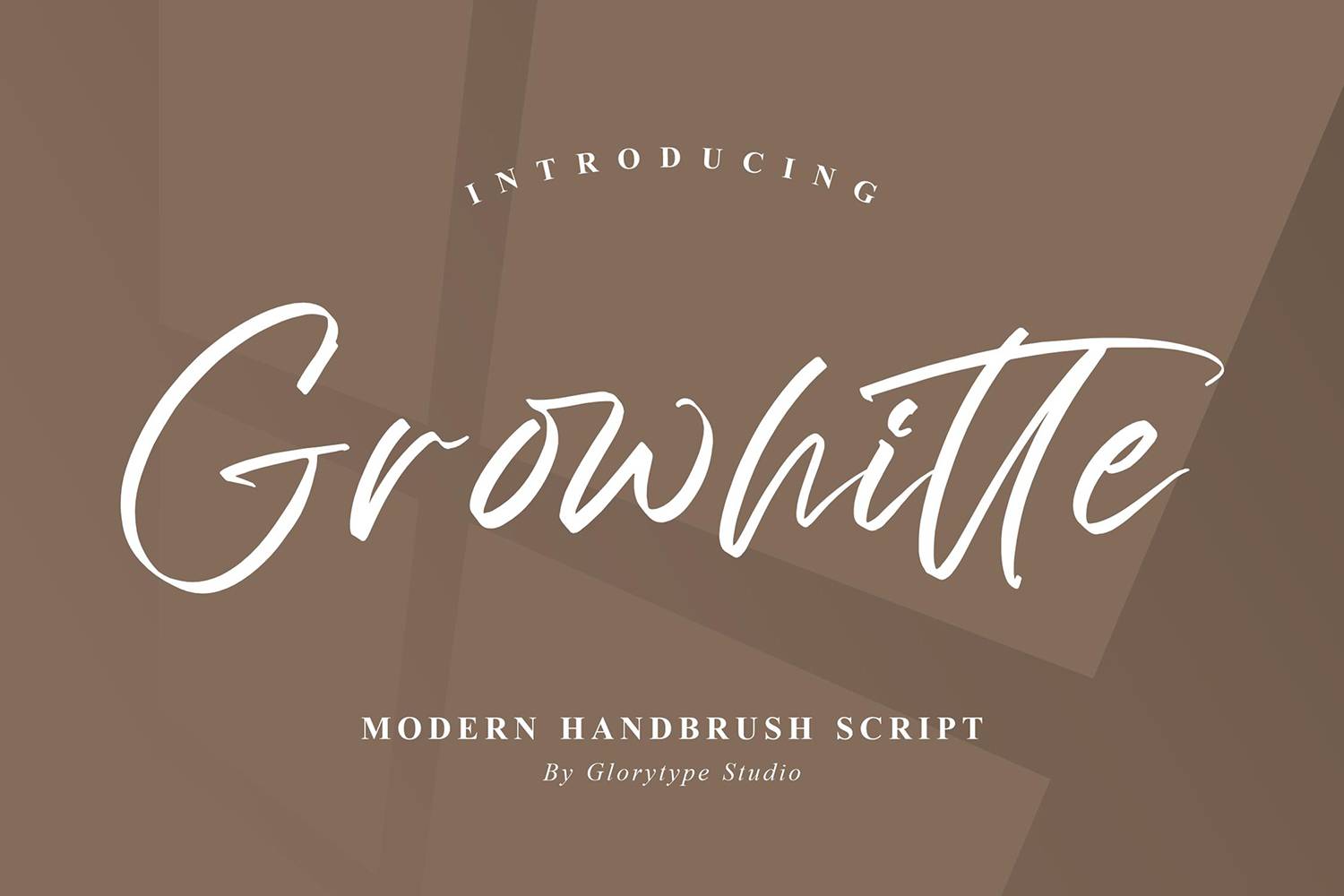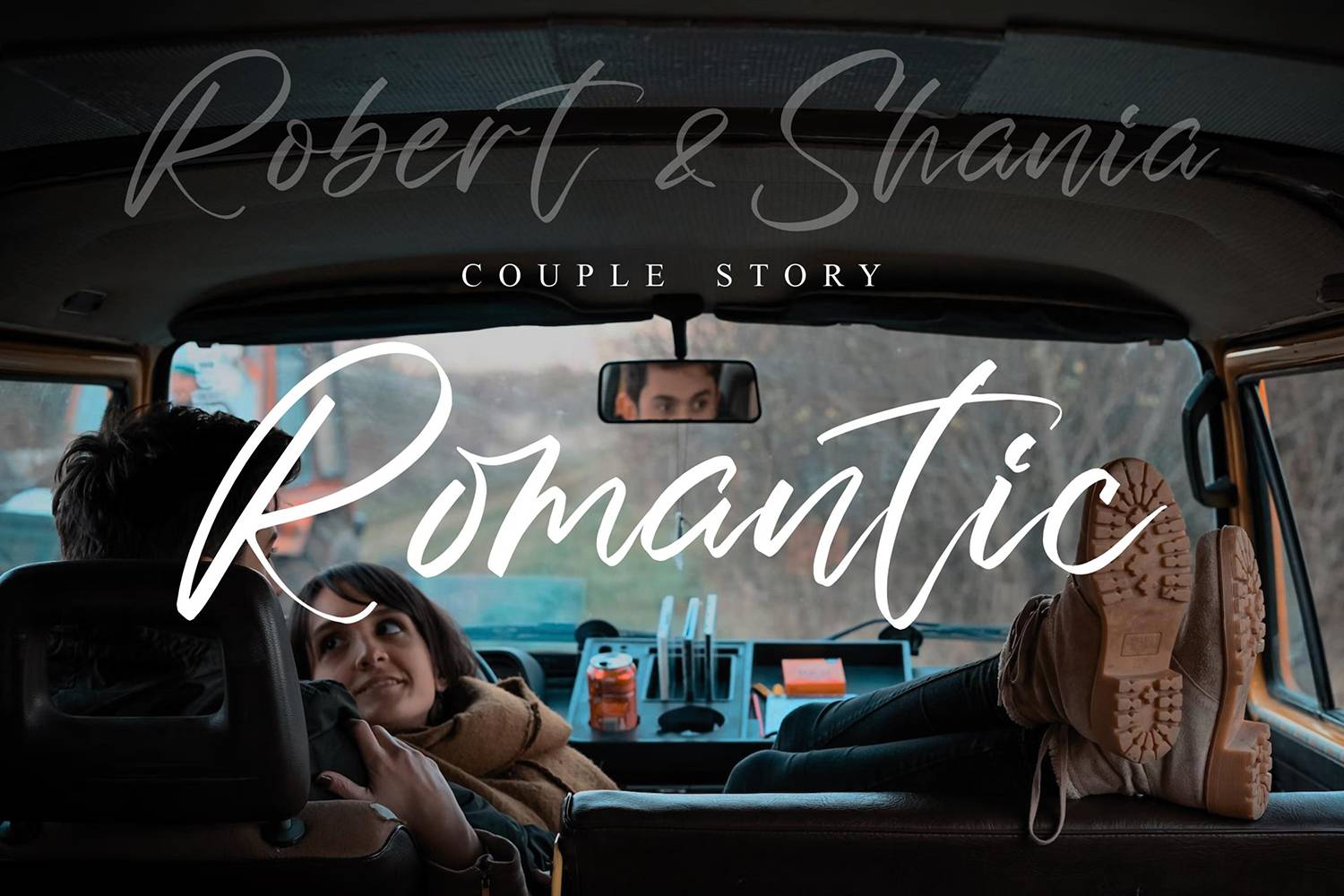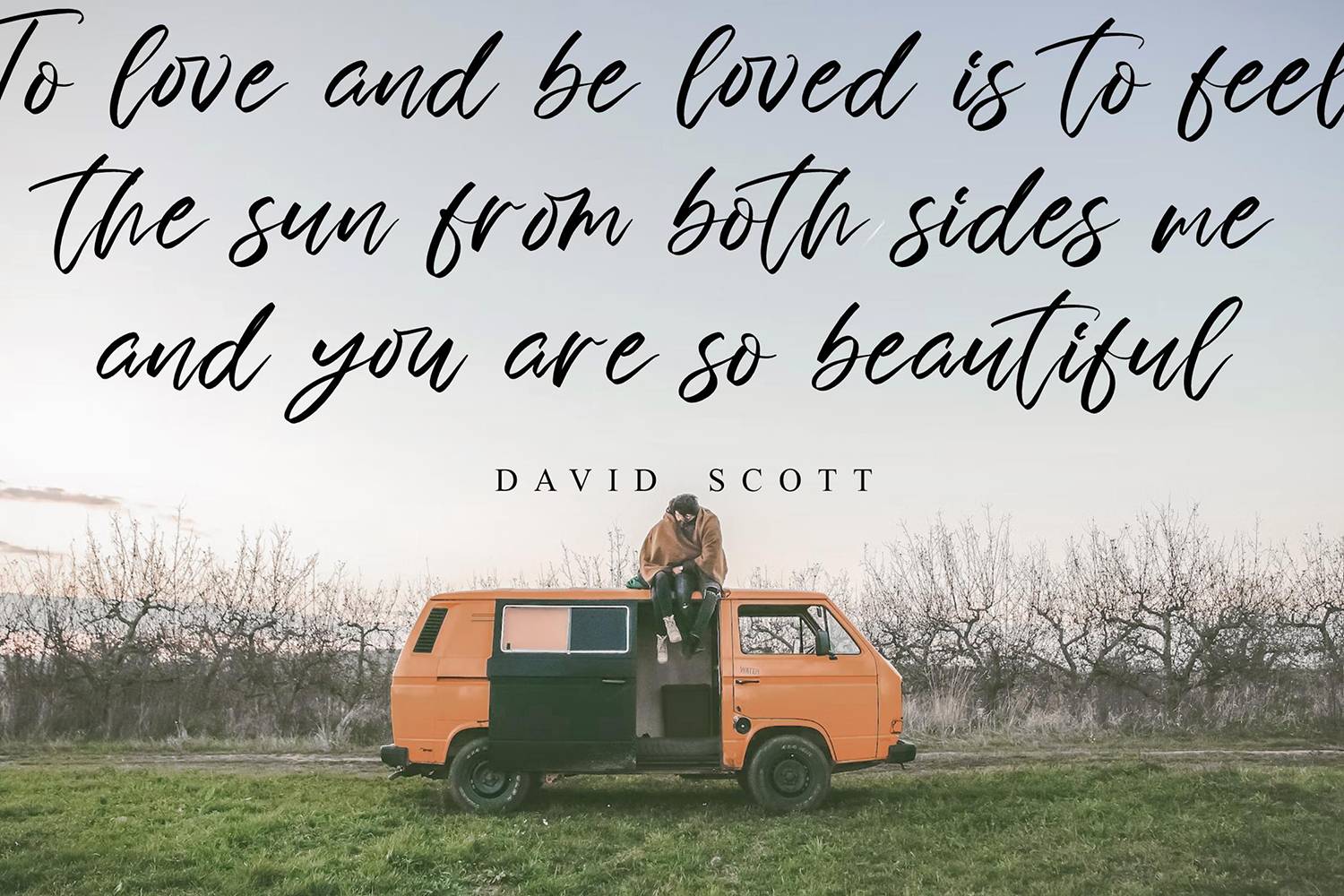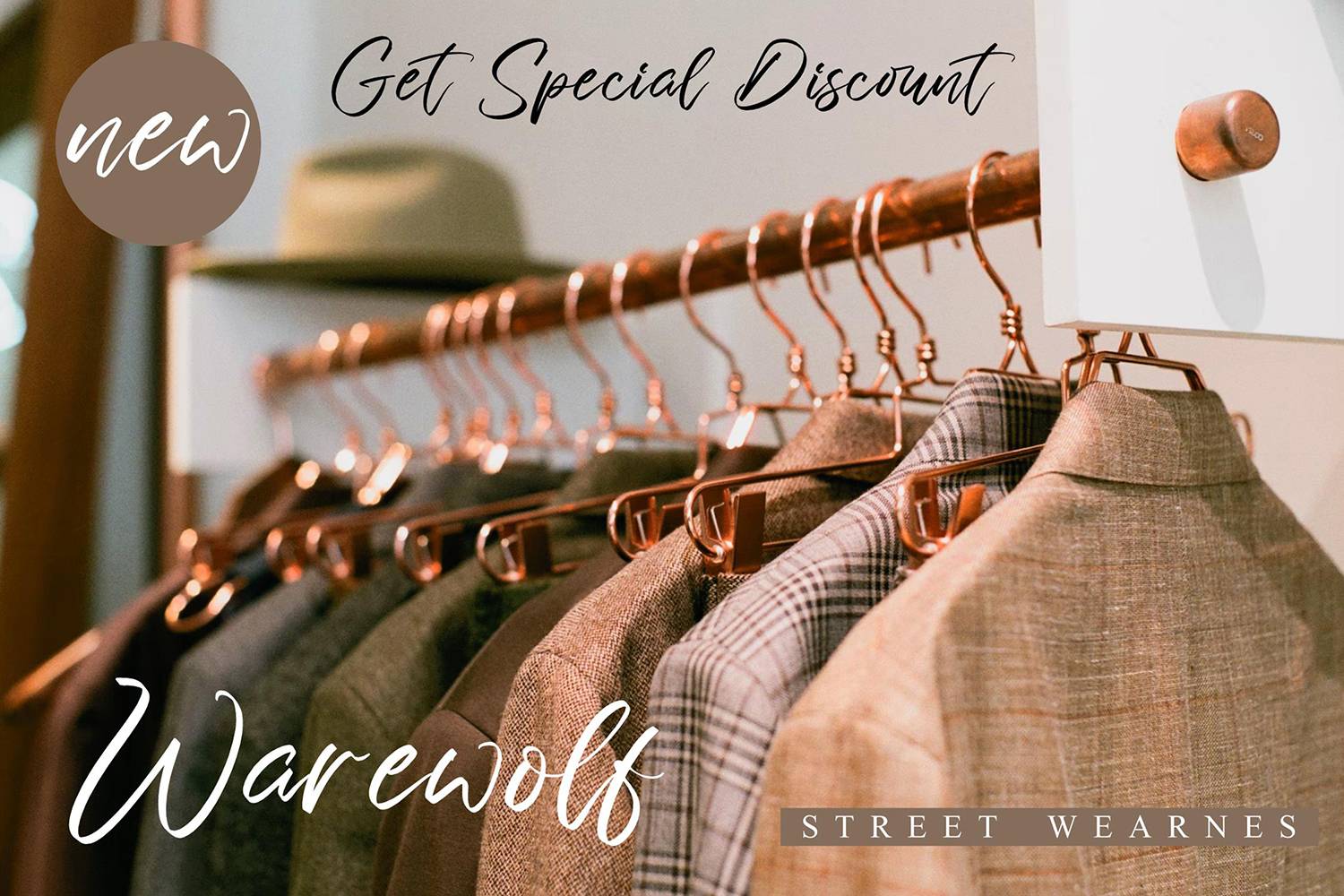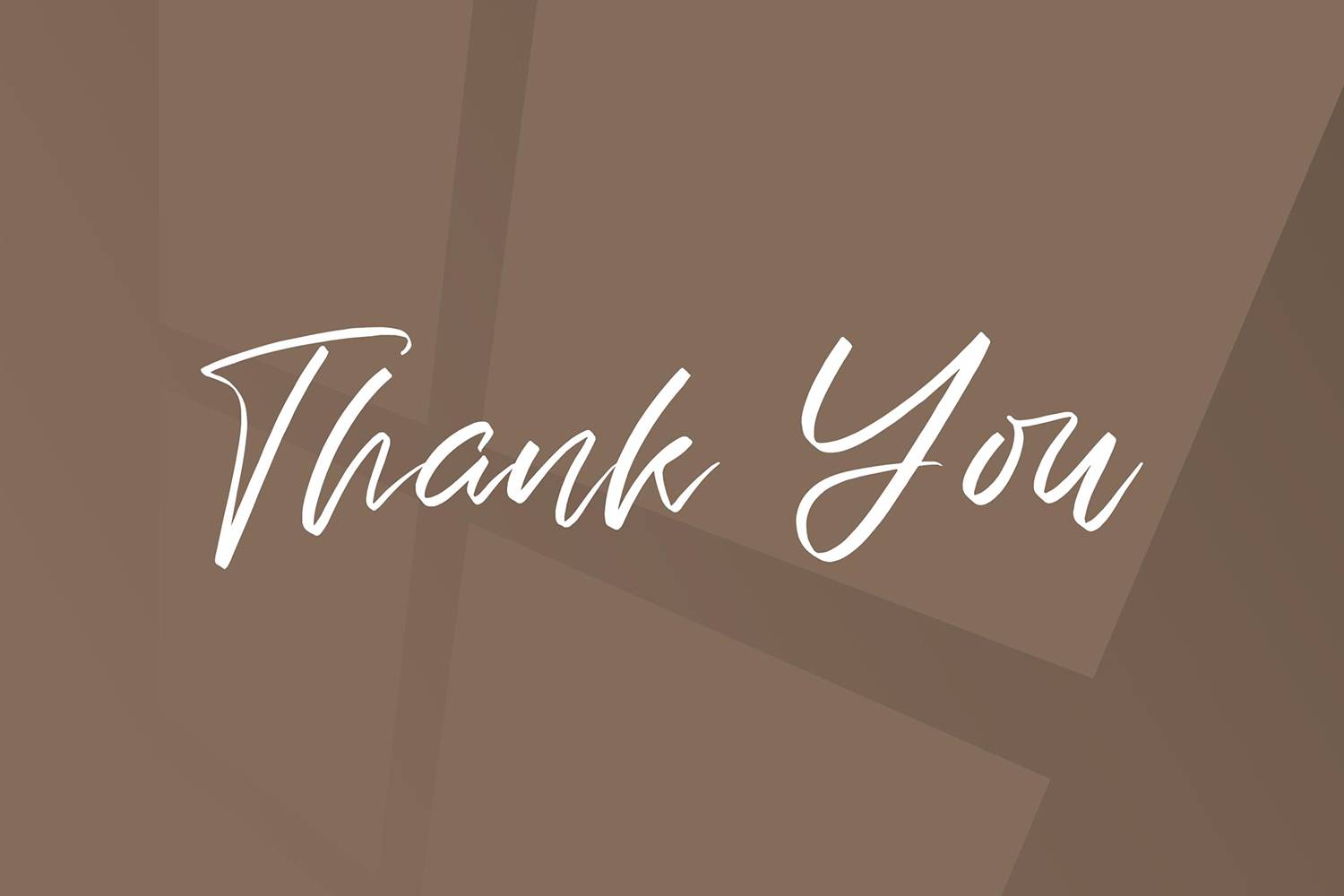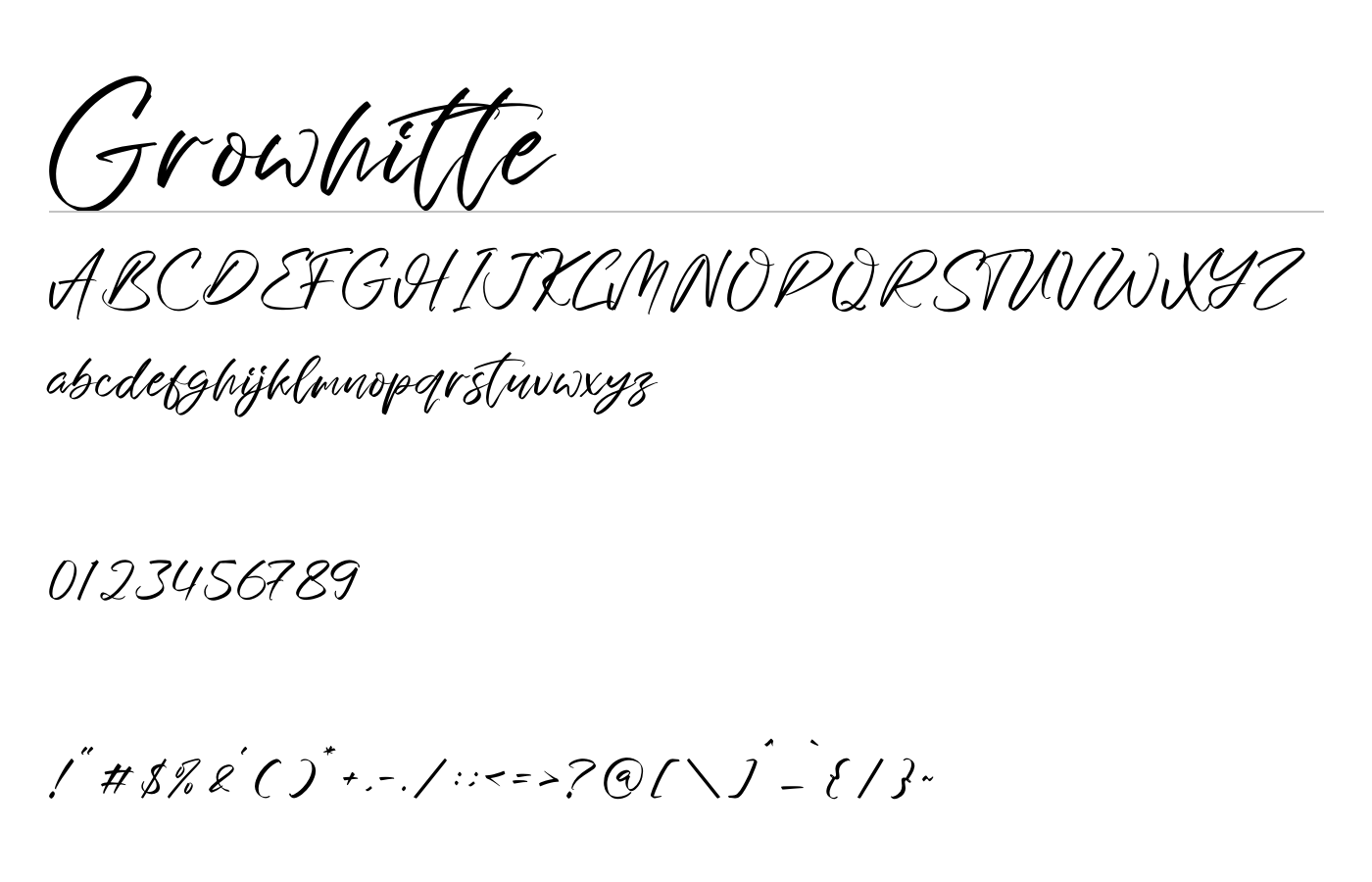
Growhitte is a stylish, handwritten script font characterized by its flowing, elegant strokes and varying line thickness that mimic natural calligraphy. With its slender, slightly slanted letterforms and refined curves, it conveys a graceful and personal touch, making it perfect for branding, invitations, and any design needing a sophisticated yet approachable feel. This font shines in creative and upscale projects where a handcrafted, artistic vibe is desired.
Growhitte Font
About Growhitte Font